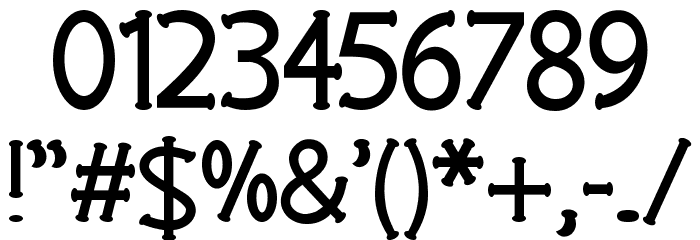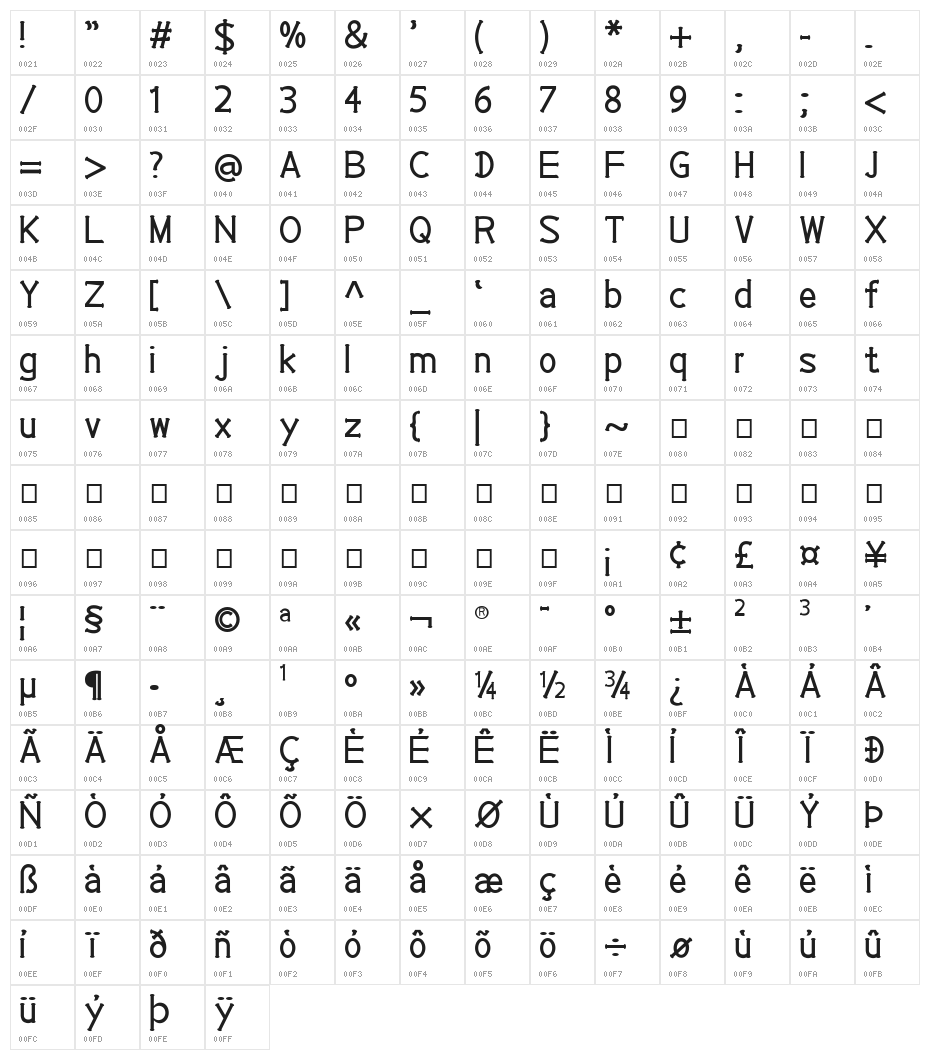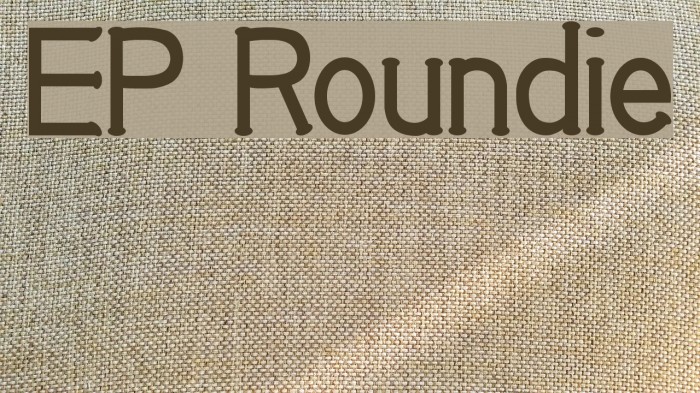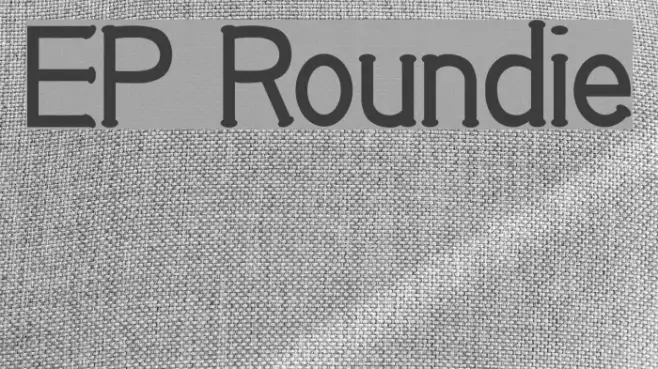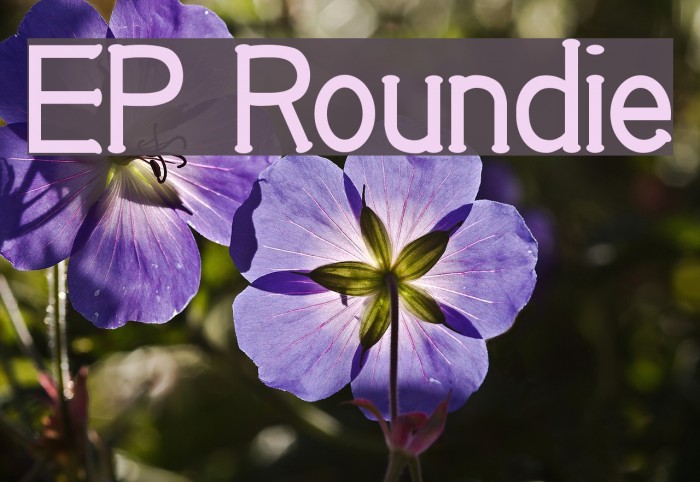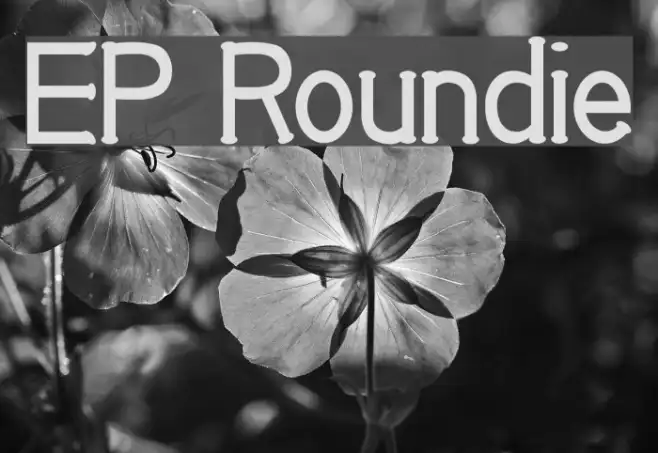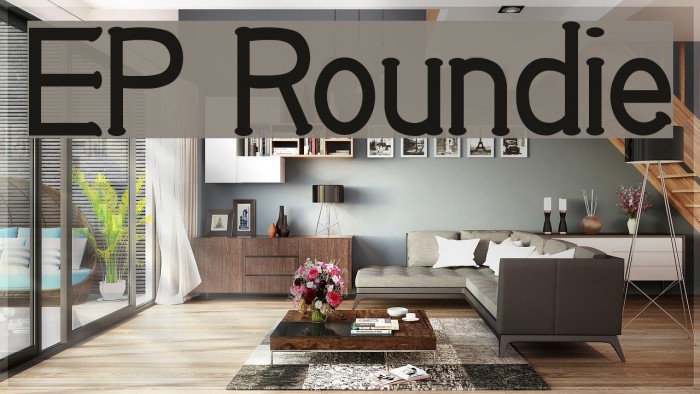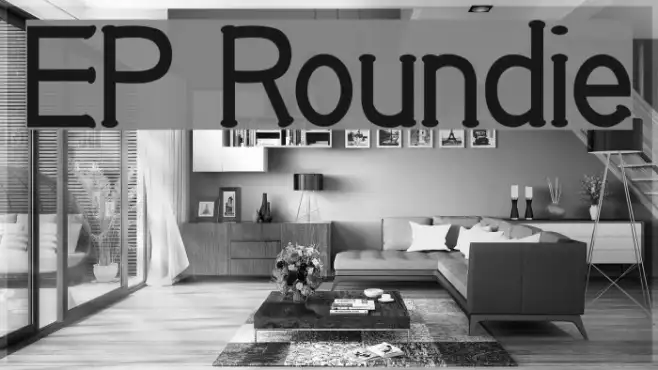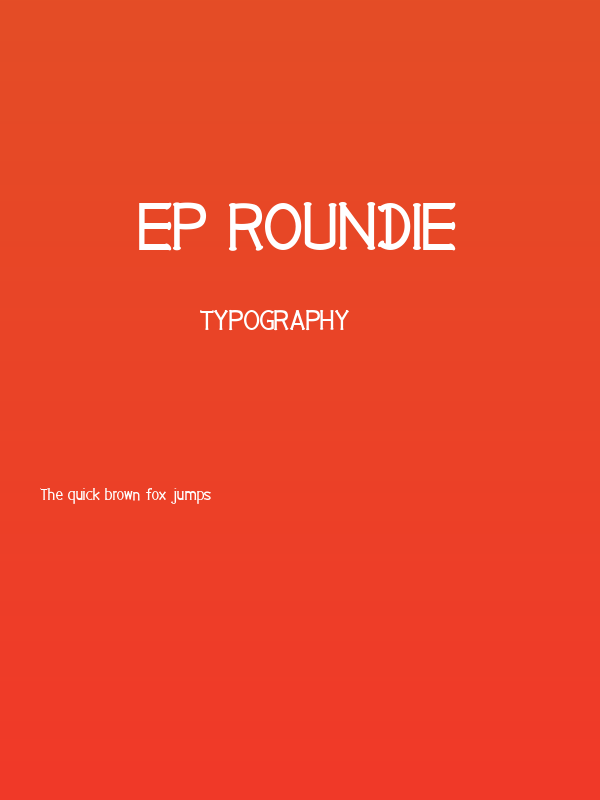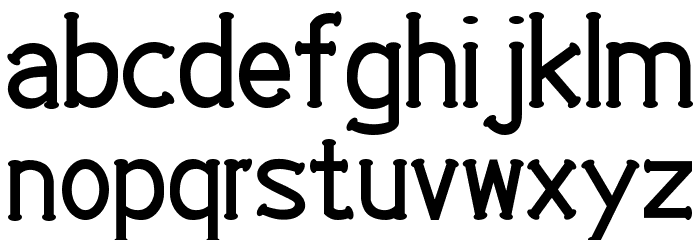
EP Roundie Font
EP Roundie Description
This font features a playful and rounded design, characterized by its smooth curves and friendly appearance. The letters are well-proportioned with a consistent stroke width, giving it a balanced and harmonious look. The rounded terminals and slightly exaggerated curves add a touch of whimsy, making it approachable and versatile. The numerals and special characters maintain the same rounded aesthetic, ensuring uniformity across all glyphs. This font is easy to read and can be used in various contexts, offering a modern yet casual feel.
| Use Case | Headlines, Logos, User Interfaces |
| Proposed Projects | Ideal for children's books, playful branding, casual invitations, and friendly user interfaces. |